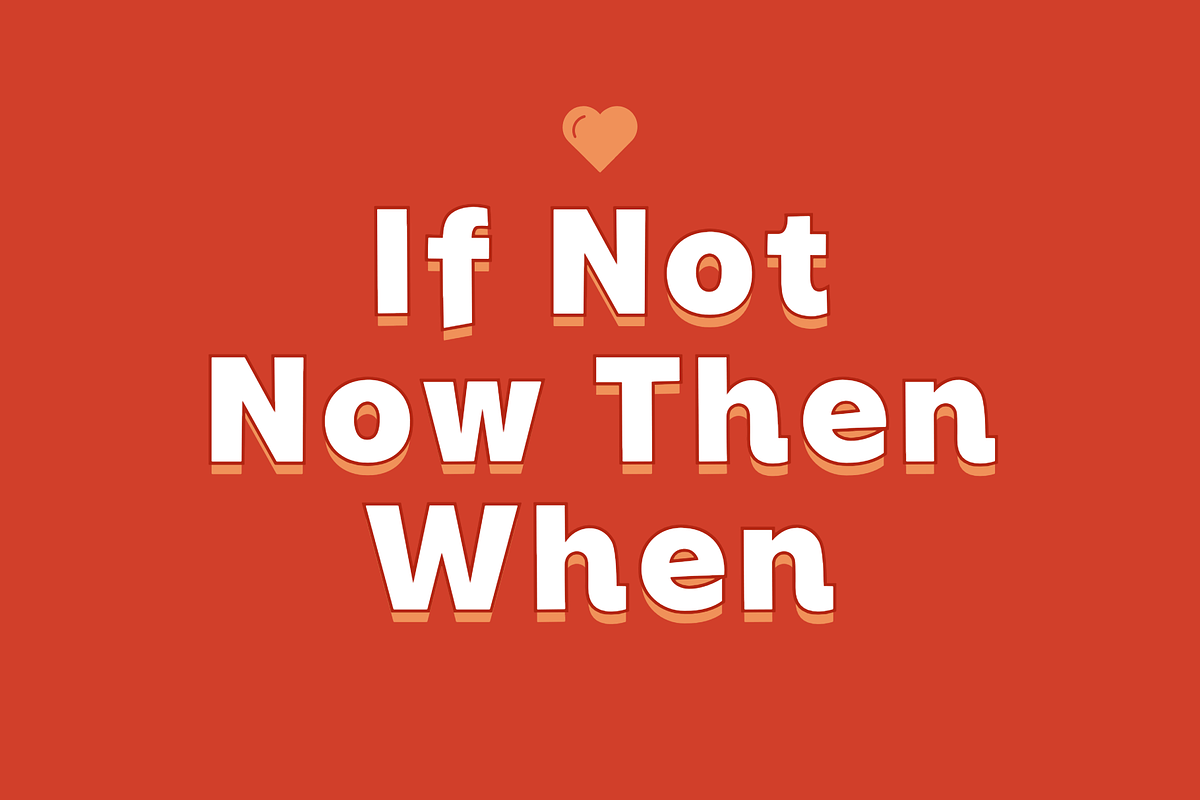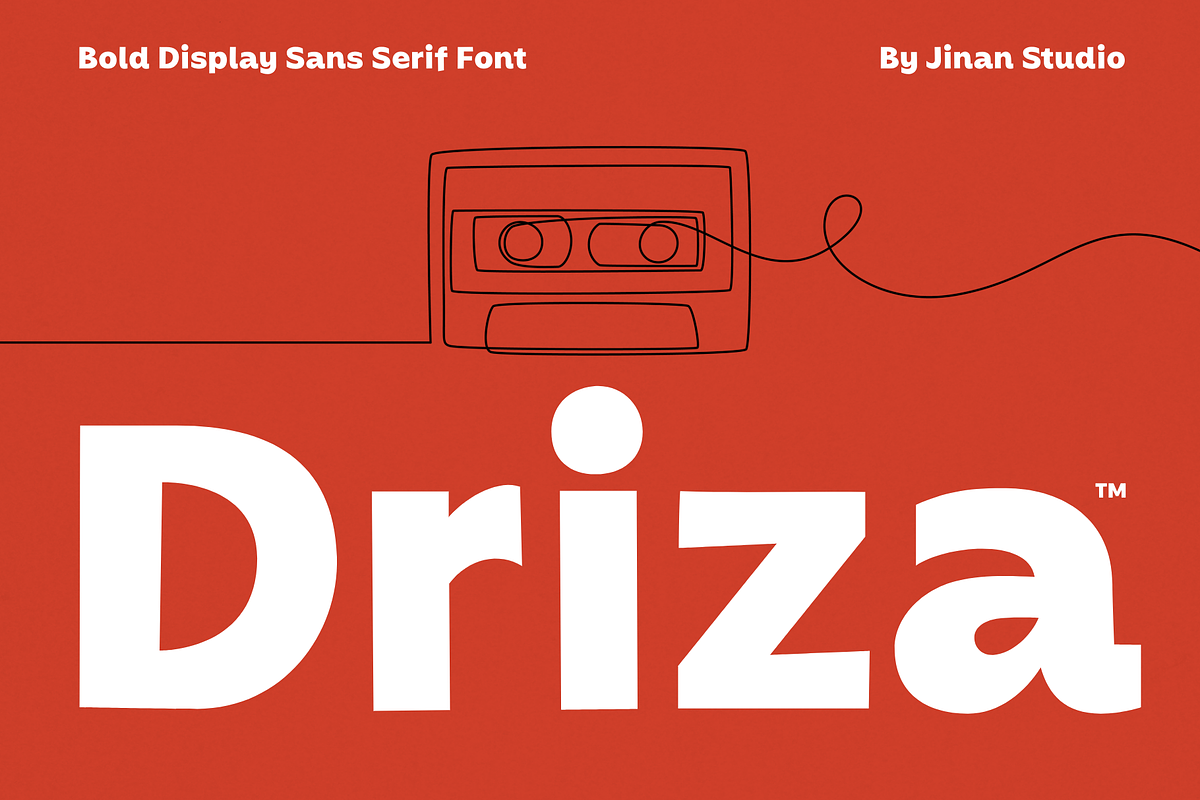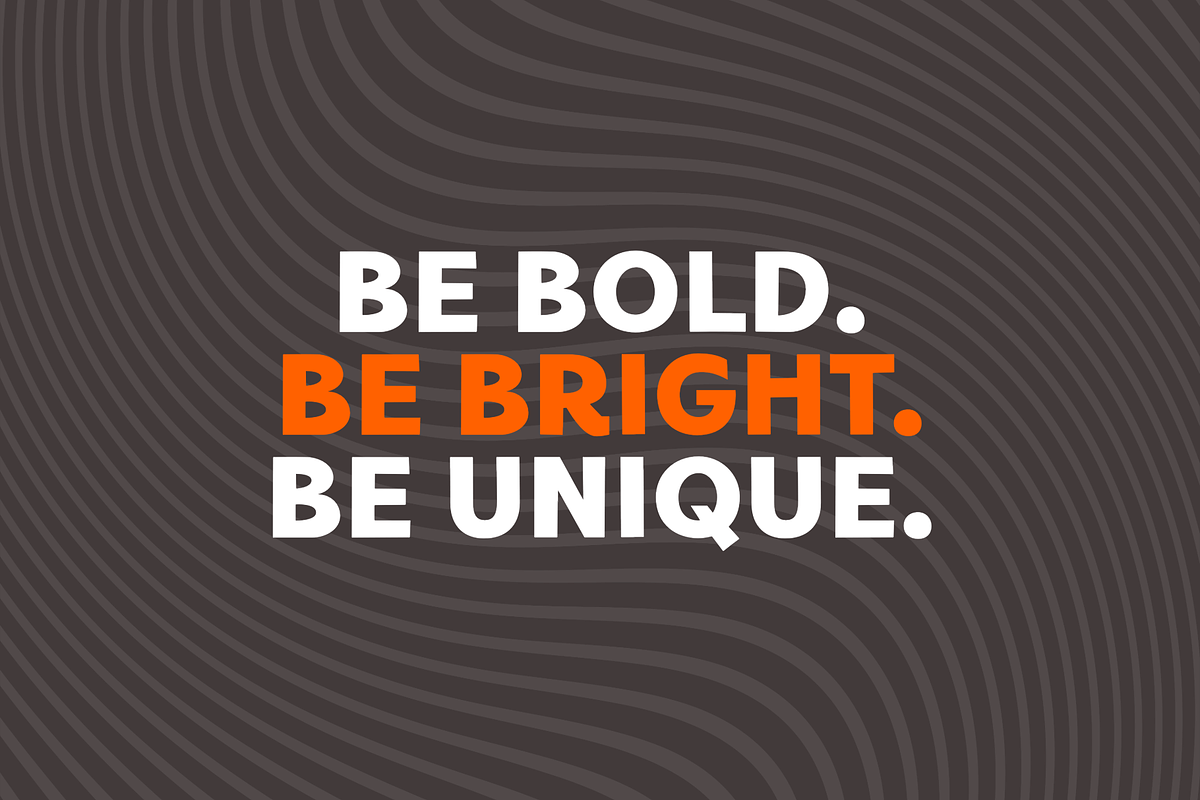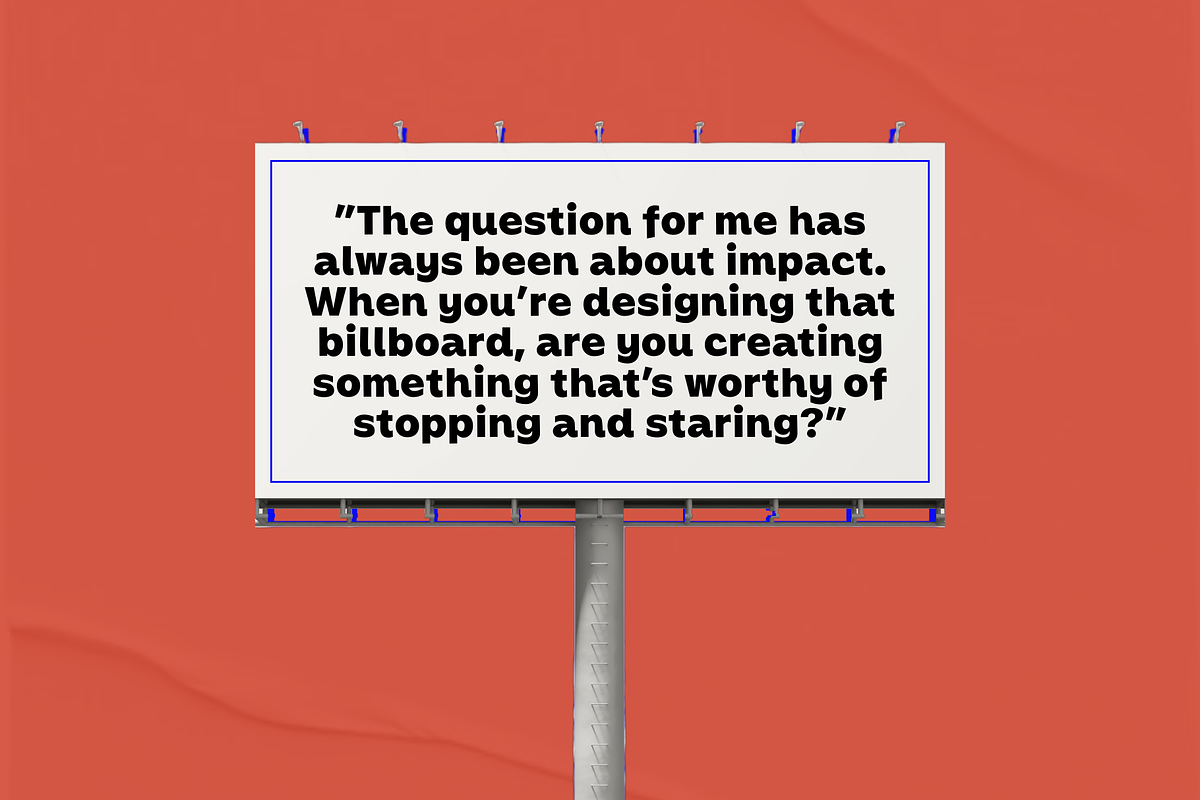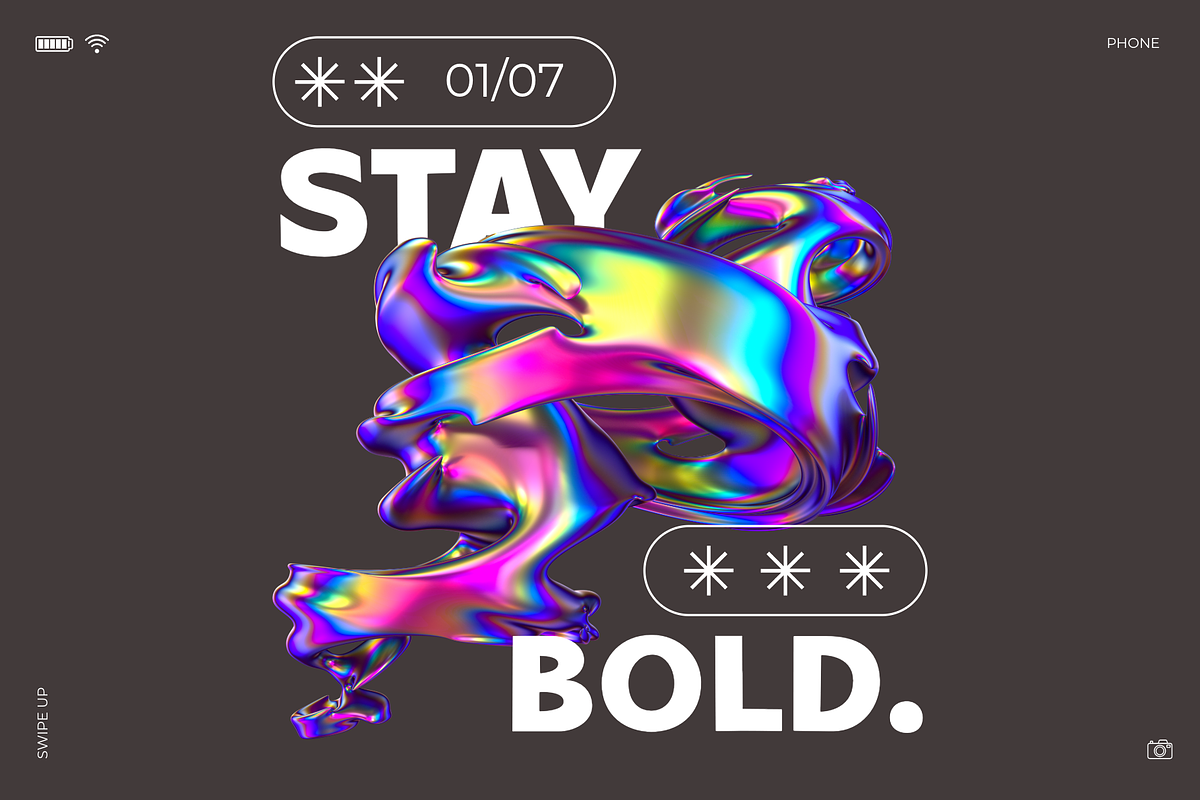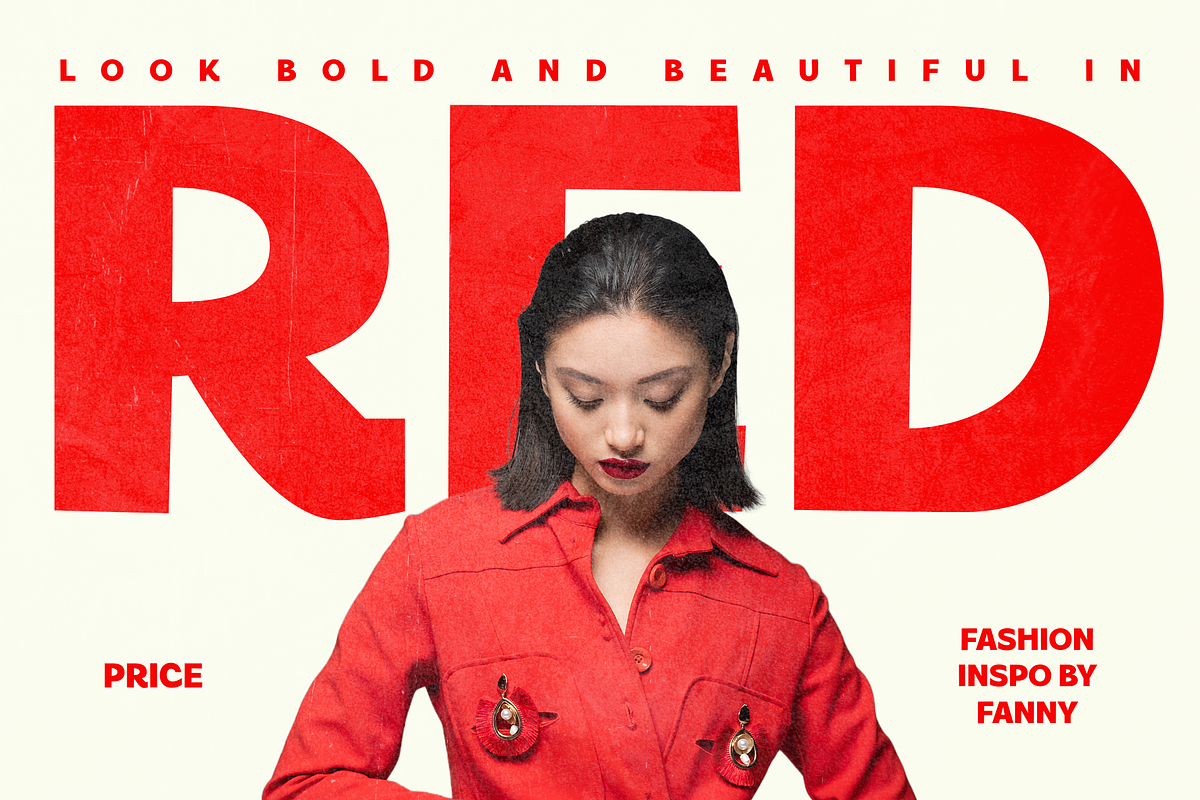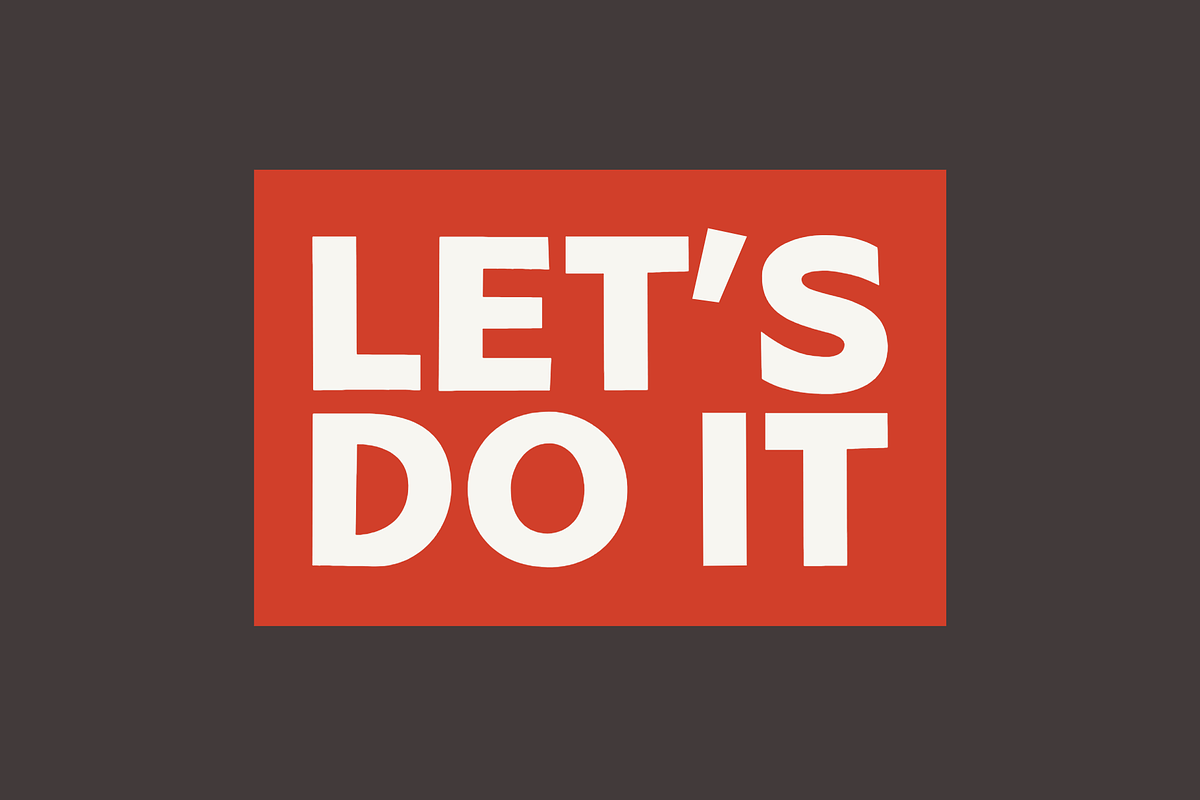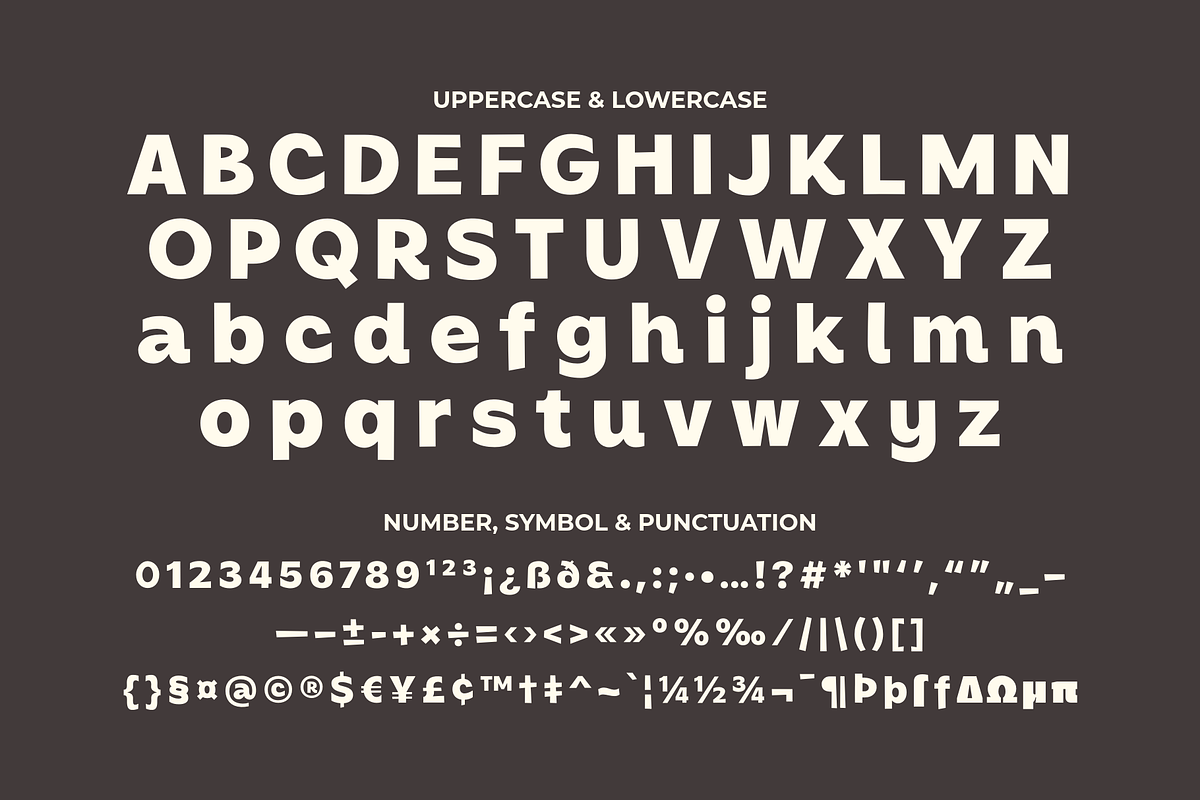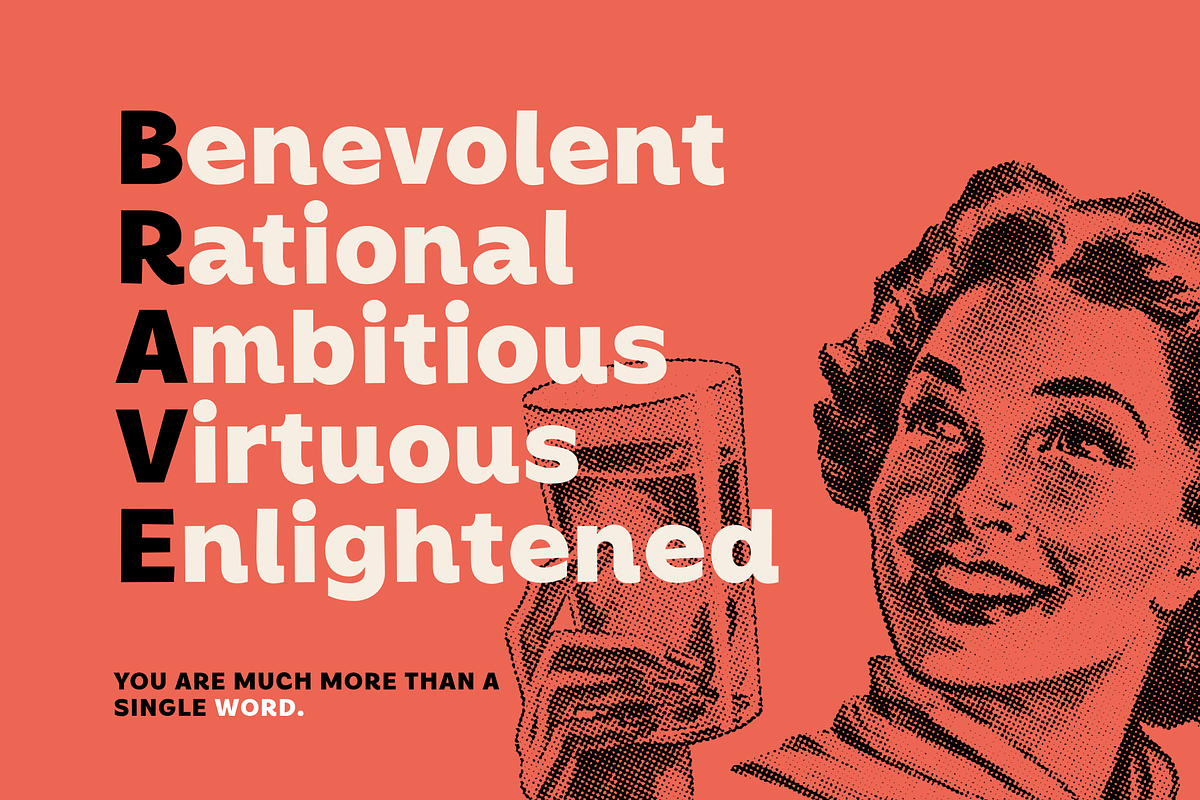
Driza – Bold Display Sans Serif
Driza is a bold display sans serif font designed to create strong and modern visual impact. Featuring thick strokes, clean shapes, and subtle rounded details, this font is perfect for branding, logos, headlines, posters, packaging, and social media graphics.
Its versatile and contemporary style makes Driza suitable for both professional and playful designs. Whether you're working on brand identity, advertising, or digital content, Driza delivers clarity, confidence, and eye-catching appeal.
- A set of uppercase and lowercase glyphs
- Number, symbol, and punctuation